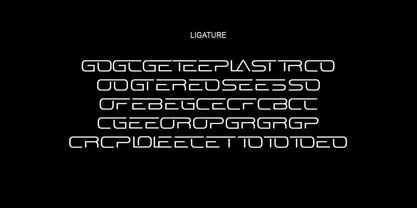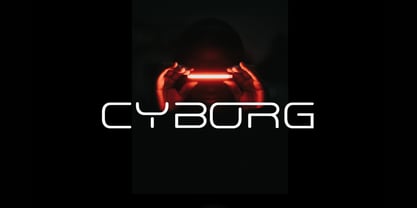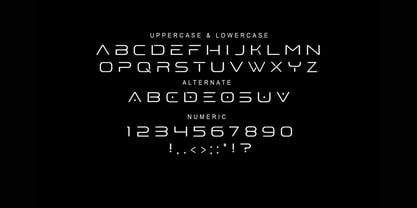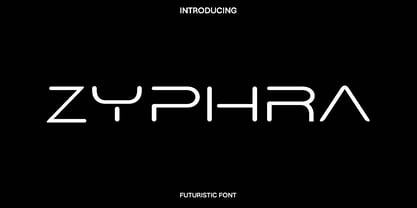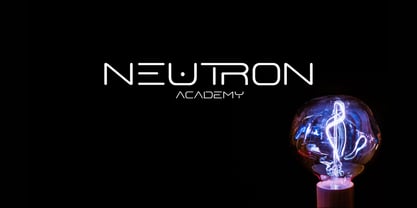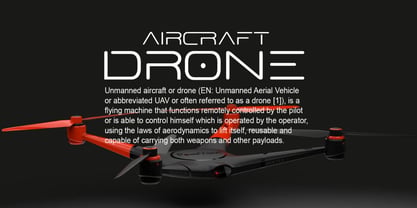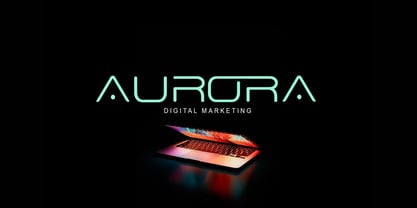
Zyphra
by Only Fonts
The Zyphra Font Family was designed by Olivia Love and published by Only Fonts. Zyphra contains 1 styles. More about this family
Zyphra is a sleek futuristic display typeface built for impact, precision, and unmistakable style. Its angular geometry and streamlined curves create a high tech voice that feels clean, fast, and forward looking, ideal for brands and interfaces that live at the edge of innovation. Set Zyphra large for headlines and logos that need instant recognition, or deploy it in UI hero text and banners where clarity meets attitude. Alternates and ligatures unlock modular letter combinations that form seamless word shapes and sci fi logotypes with minimal effort. Where it shines: - Digital products and web design: hero sections, navigation labels, app onboarding, and splash screens that demand modern clarity. - Branding and campaigns: tech, gaming, esports, automotive, and wearable identities needing a sharp, futuristic signature. - Posters and motion: trailers, event graphics, HUD overlays, and kinetic type where angular rhythm and tight spacing energize layouts. - Print and merchandise: business cards, packaging, and apparel marks that stay crisp and memorable at display sizes. Standout features: - Distinctive futuristic construction with balanced proportions for powerful headlines and logo work. - Built in alternates to vary tone from technical to experimental while preserving coherence across a system. - Custom ligatures that forge connected forms for compact wordmarks and high impact titles. - Purposeful spacing and optical alignment tuned for display use, maintaining sharp edges and consistent texture. - Numerals designed to match the typographic voice for dates, stats, and product codes. Use Zyphra when a project needs a modern, engineered presence that reads fast and feels unique. Its combination of geometry, alternates, and ligatures turns everyday words into bold statements for web designs, business cards, posters, and any surface that benefits from a precise futuristic edge.
Designers: Olivia Love
Foundry: Only Fonts